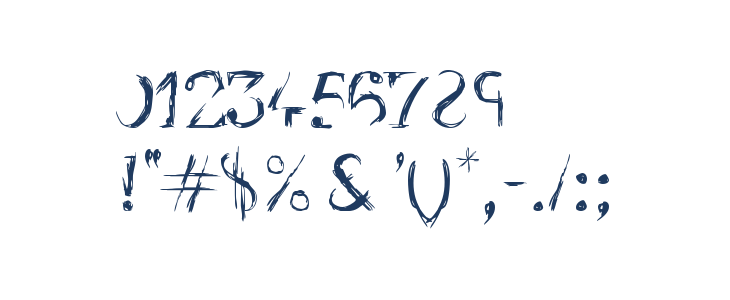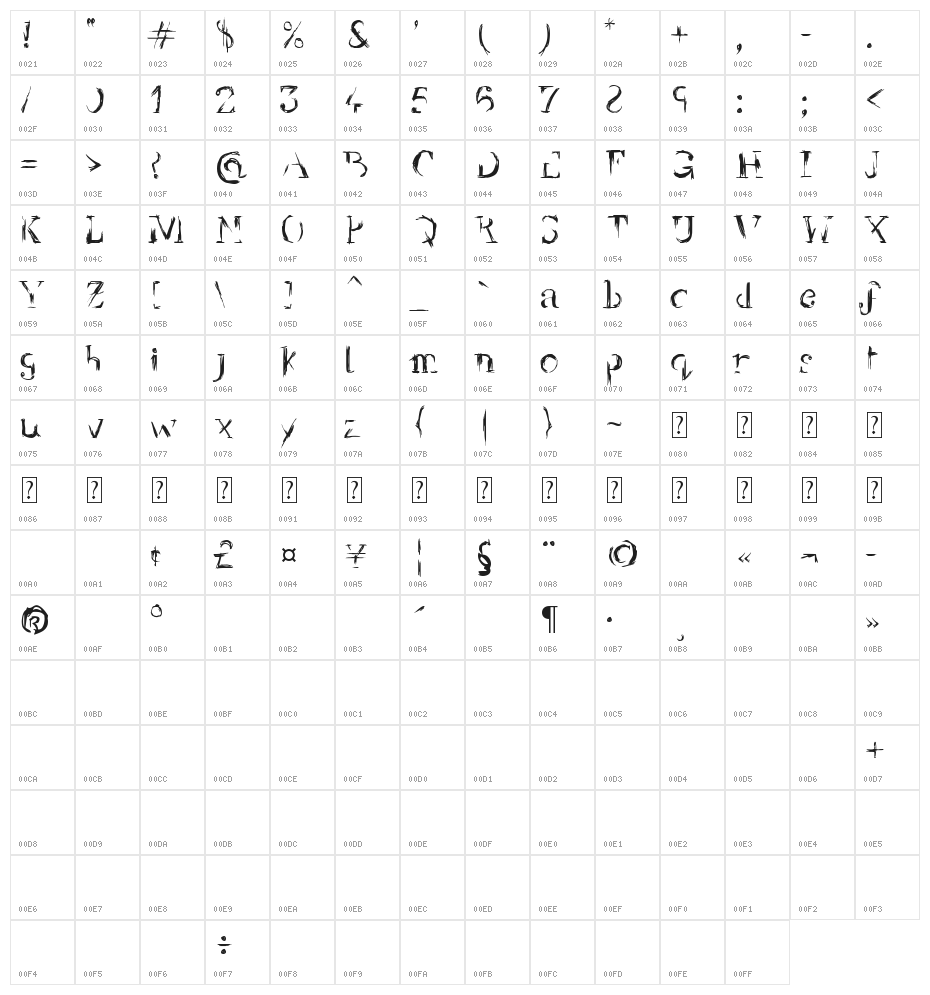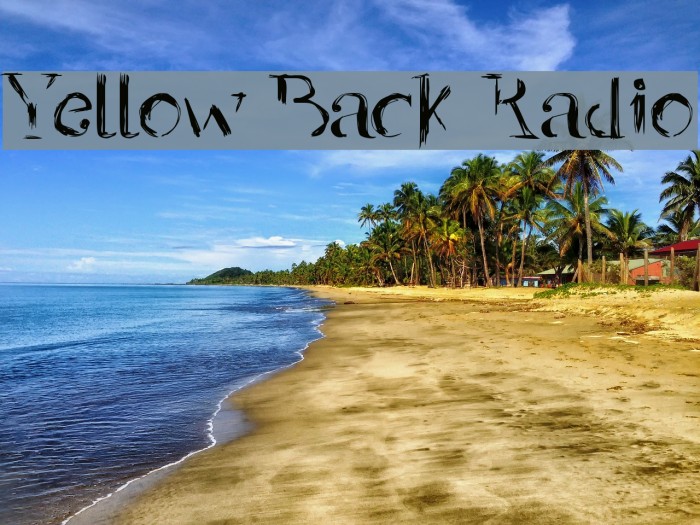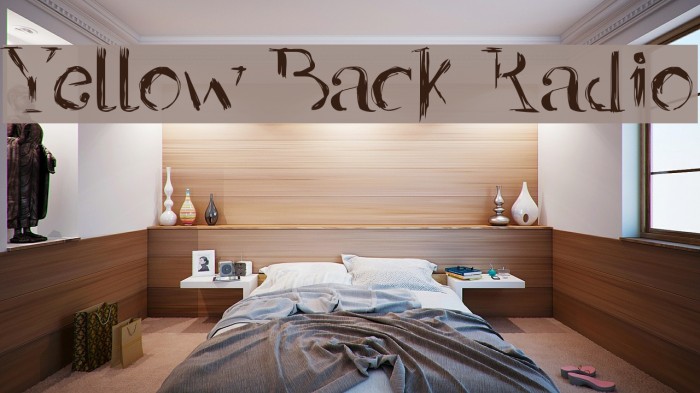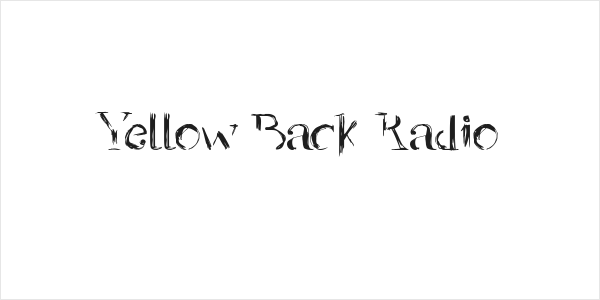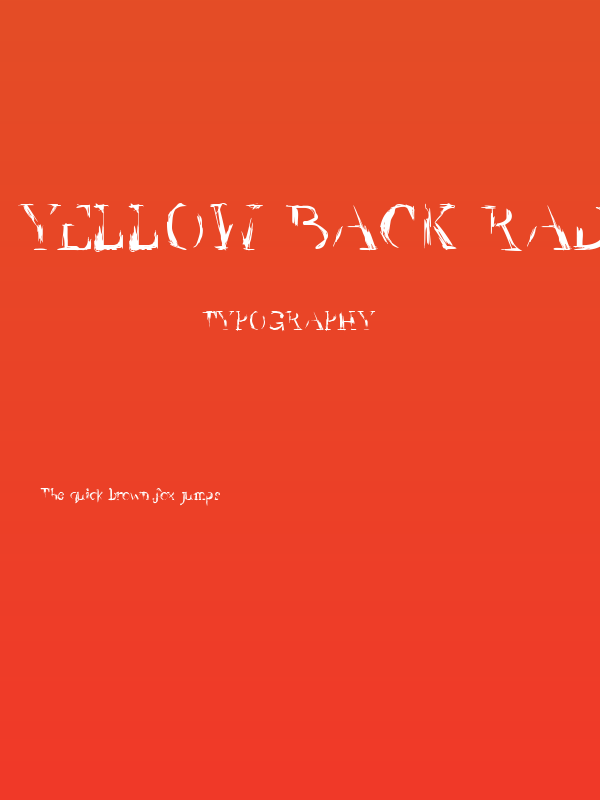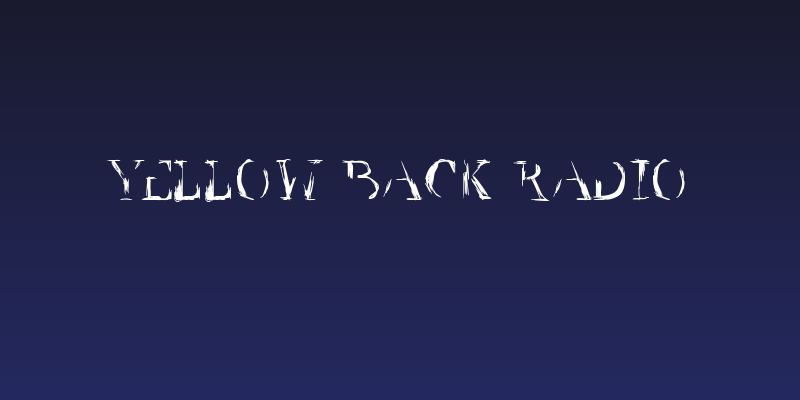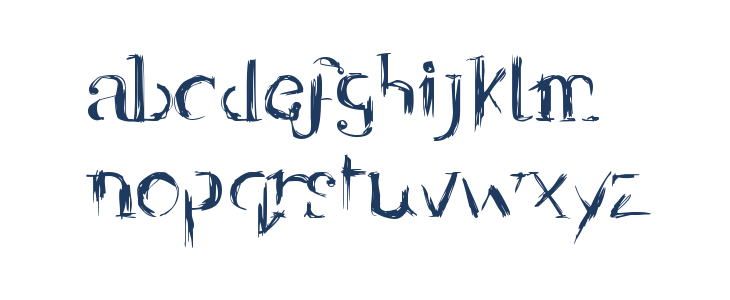
Yellow Back Radio Font
Yellow Back Radio Description
This font exhibits a highly decorative and artistic style, characterized by its rough, brush-like strokes that give it a dynamic and edgy appearance. The letters are irregular and jagged, creating a sense of movement and energy. The uppercase and lowercase letters maintain a consistent design, with sharp angles and varying stroke widths that add to its unique aesthetic. Numbers and special characters follow the same design principles, ensuring a cohesive look across all glyphs. This font is ideal for projects that require a bold and unconventional typeface to make a strong visual impact.
| Proposed Projects | Ideal for album covers, posters, and branding that seeks a bold, artistic flair. |